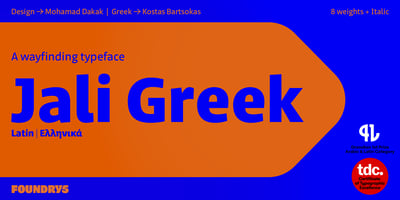
Jali Greek
Jali Greek font
Jali Greek Font Family was designed by Kostas Bartsokas, Mohamad Dakak and published by Foundry5. Jali Greek contains 17 styles and family package options. Jali is a humanist sans serif typeface, suitable for wayfinding. It supports Arabic, Greek, and Latin.‘Jali’ means clear in Arabic. Its design reflects clarity, with low-contrast strokes, ample counters, and distinguishable marks. Jali offers a warm and efficient reading experience.Awards: TDC Certificate in Typographic Excellence and Granshan’s 1st Prize, Arabic & Latin Category, 2019.